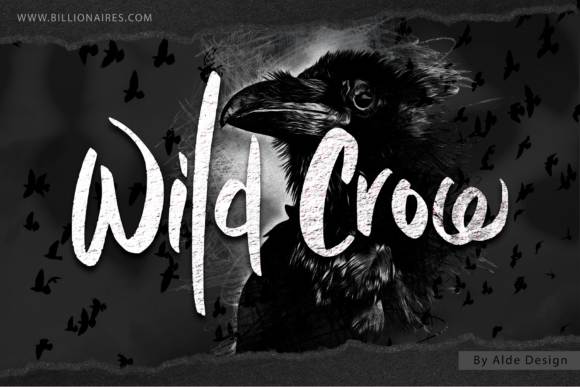
Prepare yourself to unleash your creativity and let your designs take flight with the extraordinary Wild Crow Font! This handcrafted wonder, hailing from the artistry of aldedesign, is a captivating script font that captivates with its enchanting strokes and playful spirit.
Explore the infinite possibilities of the Wild Crow Font and watch your imagination soar. From T-shirt designs that speak volumes about your vibrant personality to logos that leave an unforgettable mark, this font is your gateway to boundless creativity.
With Wild Crow, every word carries a story, every phrase a masterpiece. Its enchanting curves and dynamic flow add a touch of whimsy and charm to your designs, inviting your audience into a world of dreams and endless possibilities.
Step into the magical realm of Wild Crow and let your designs dance with joy and abandon. Craft logos that radiate a vibrant energy, quotes that inspire the soul, and posters that captivate the senses. This font is an ode to individuality, a symphony of expression that awaits your creative touch to unleash its full potential.
Unlock the power of Wild Crow and let your brand soar to new heights. Its playful nature infuses life into T-shirt designs, making them true works of art that speak to the adventurous spirit within. From casual tees to statement pieces, Wild Crow elevates your designs to extraordinary heights.
Take your designs to breathtaking new frontiers with the Wild Crow Font. Its uniqueness and handmade charm will transform your creations into captivating visual stories, leaving an indelible mark on the hearts of your audience. Embrace the magic of Wild Crow and unlock the boundless creativity within you!